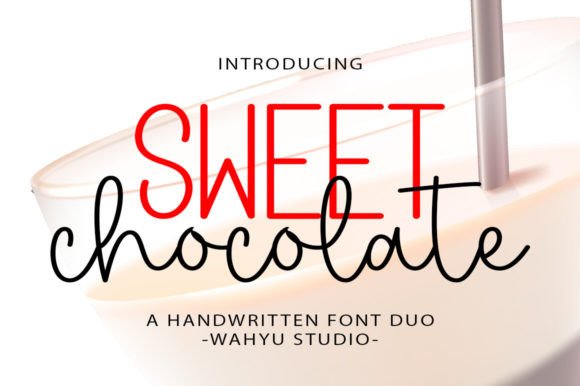
Unleash the Elegance and Grace of Sweet Chocolate Duo: The Font That Inspires, Captivates, and Evokes a Touch of Romance
Embark on a visual journey into the world of Sweet Chocolate Duo, a duo font that embodies charm, sophistication, and timeless appeal. This remarkable font family, comprising a delicate sans serif and an enchanting script, will elevate your creative endeavors, leaving an unforgettable impression on your audience.
Crafted with meticulous attention to detail by the talented designers at Wahyu Studio, Sweet Chocolate Duo exudes a romantic touch that will add a touch of magic to your creations. Whether you're designing greeting cards, crafting headlines, or seeking to enhance your social media presence, this font will elevate your designs to new heights.
Effortlessly Access a Symphony of Glyphs and Ligatures
With Sweet Chocolate Duo, you'll have the freedom to explore a comprehensive range of glyphs and ligatures, granting you unparalleled creative possibilities. Fully PUA encoded, this font ensures seamless access to these special characters, allowing you to effortlessly add intricate details and flourishes to your designs.
A Versatile Font Family for a Multitude of Applications
Sweet Chocolate Duo's versatility shines across a diverse spectrum of applications. Its delicate sans serif exudes a clean and modern aesthetic, while the flowing script adds an undeniable touch of elegance. Whether you're creating logos, designing invitations, or crafting stunning social media graphics, this font family is your perfect companion.
Sweet Chocolate Duo: A Font That Evokes Emotion and Captivates Hearts
More than just a font, Sweet Chocolate Duo is an experience that will evoke emotion and capture the hearts of your readers. Its romantic and charming aura will infuse your designs with warmth and personality, leaving a lasting impression that will resonate with your audience.
Unlock Your Creative Potential with Sweet Chocolate Duo